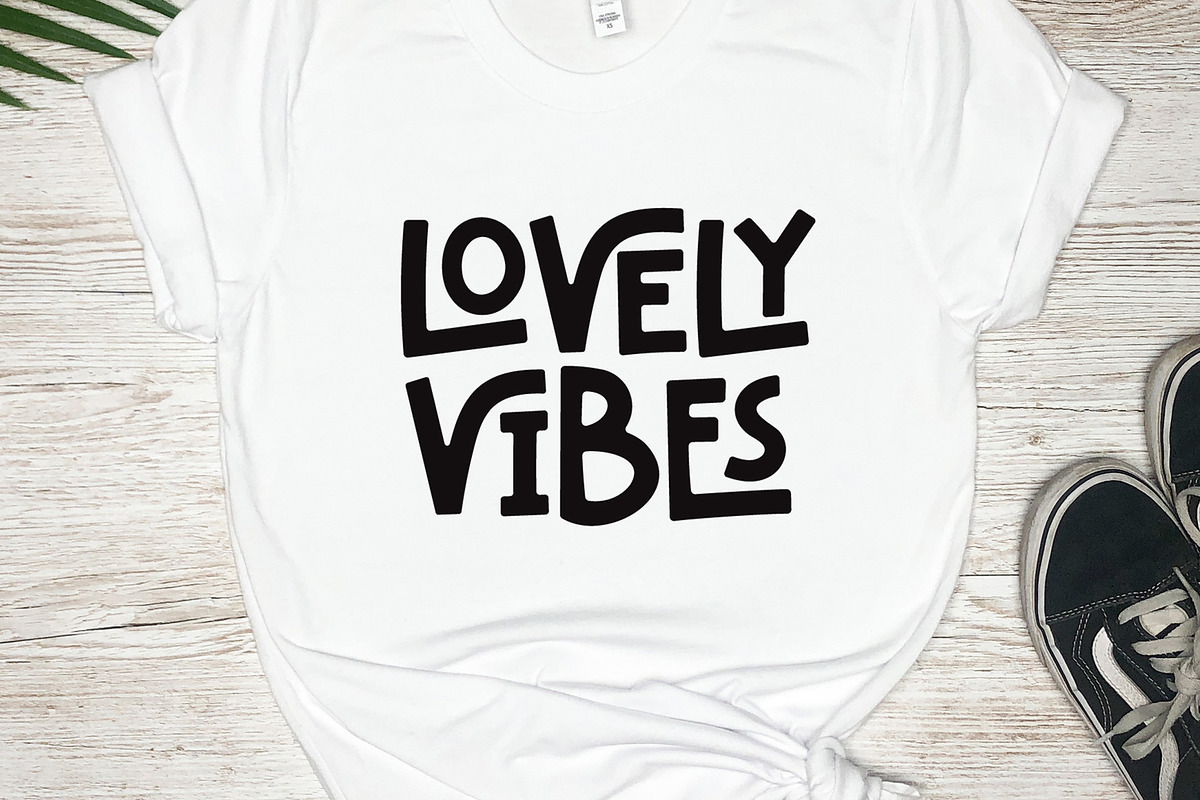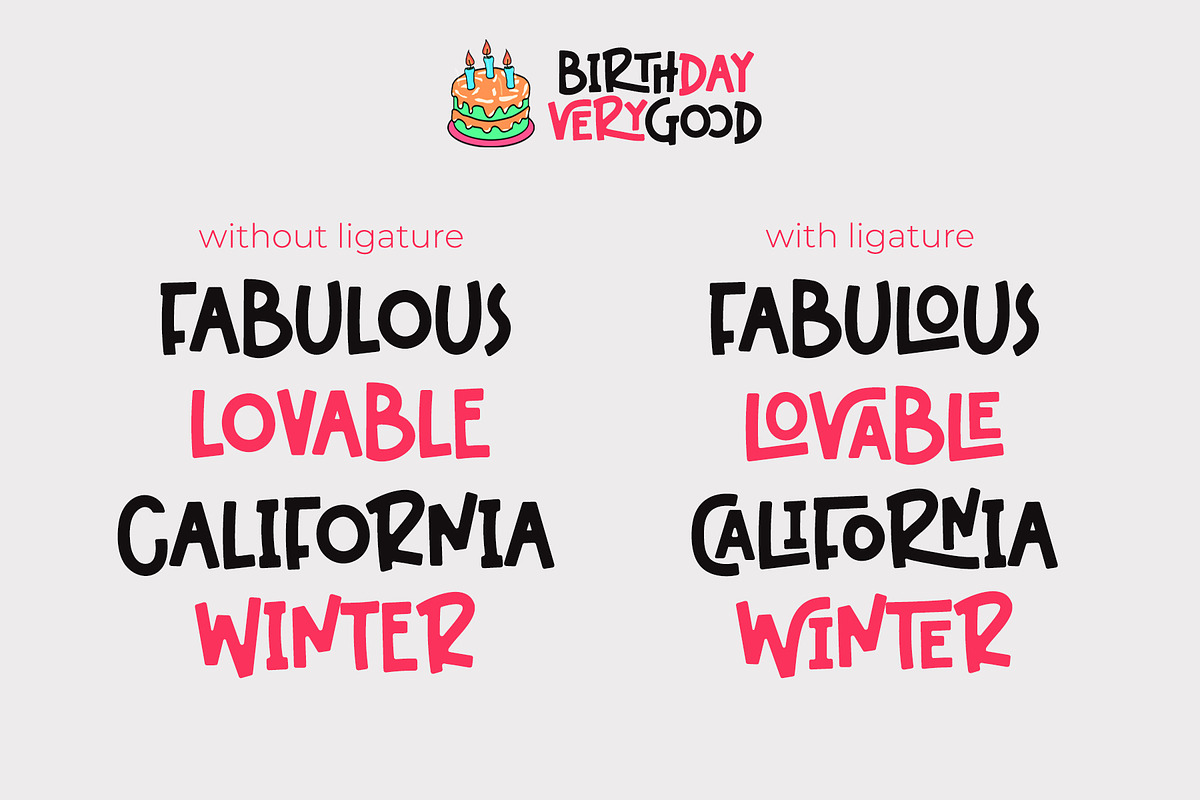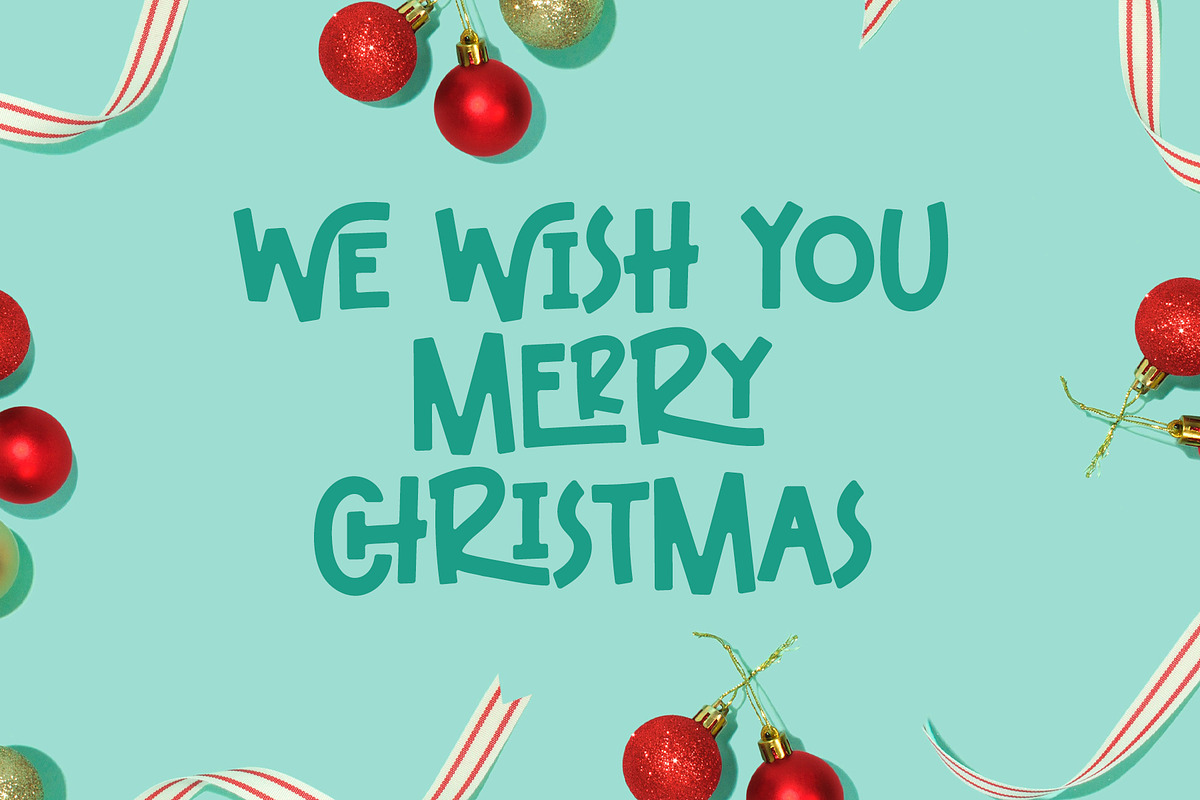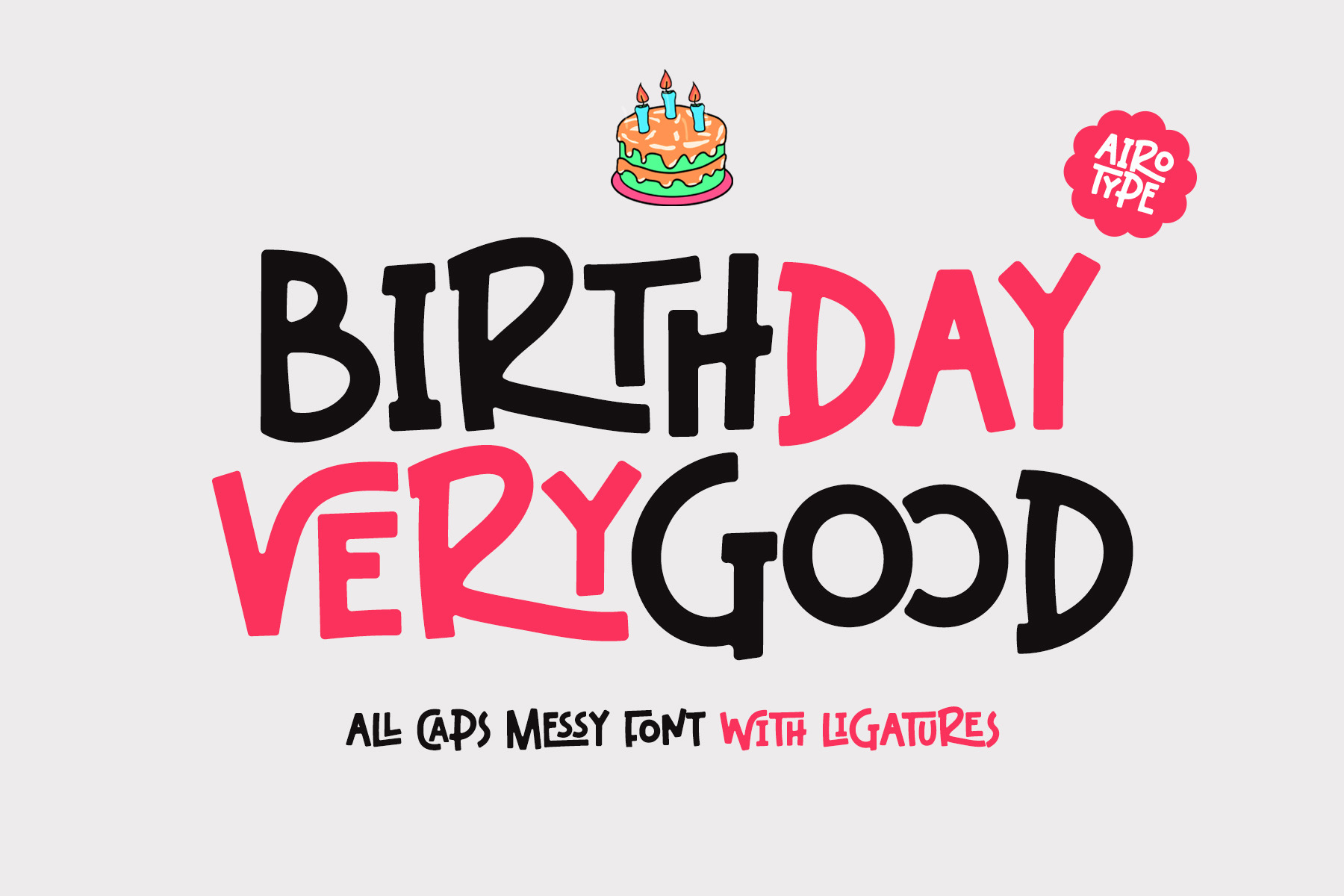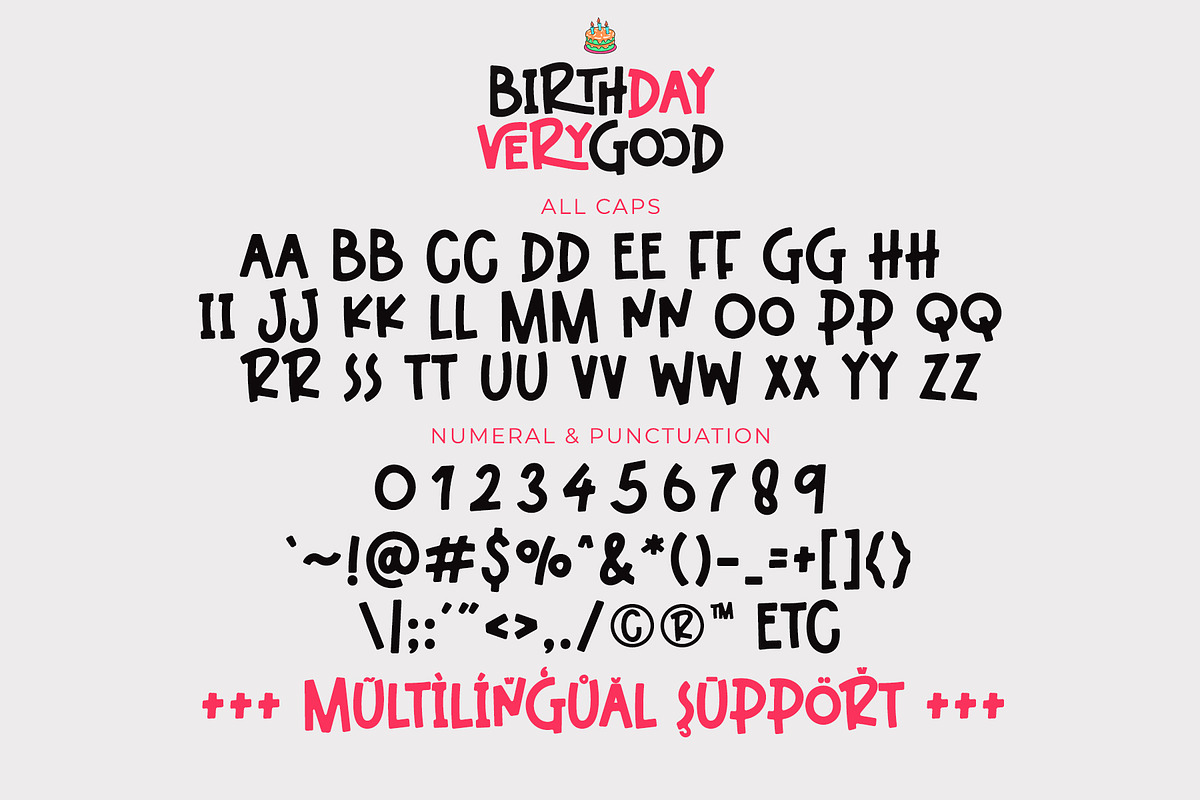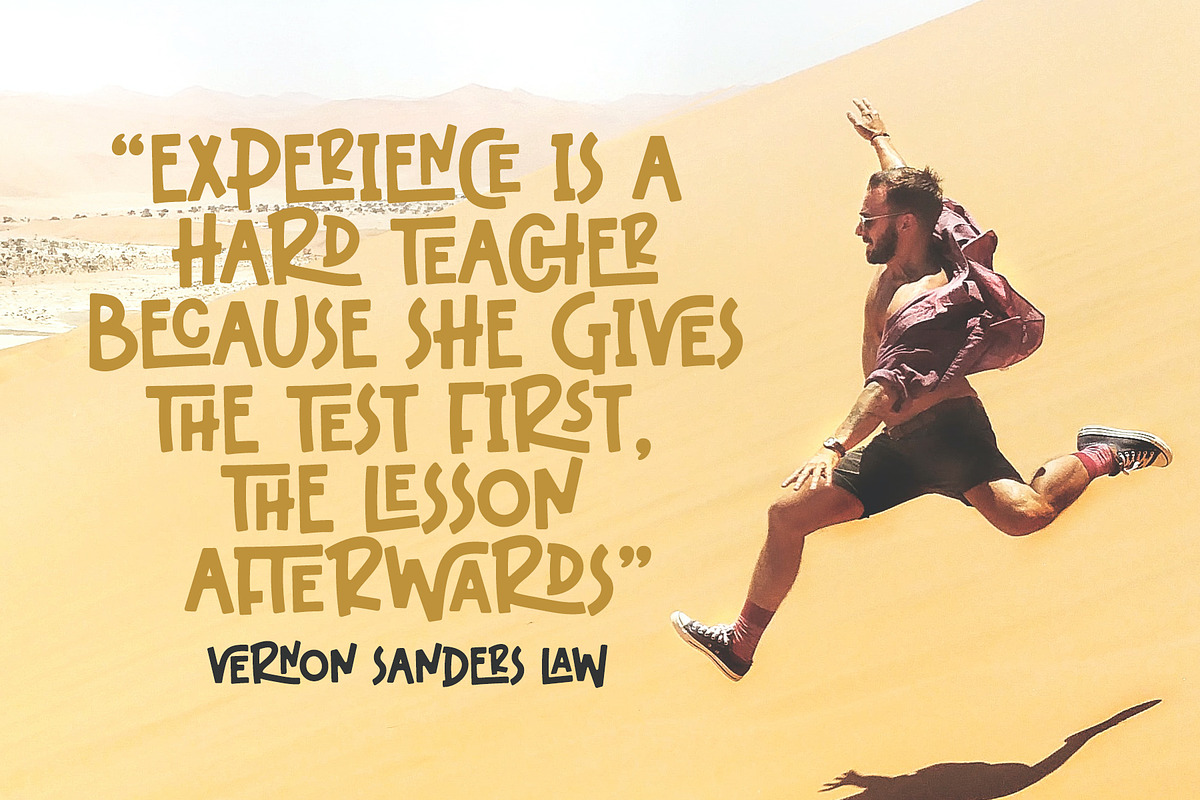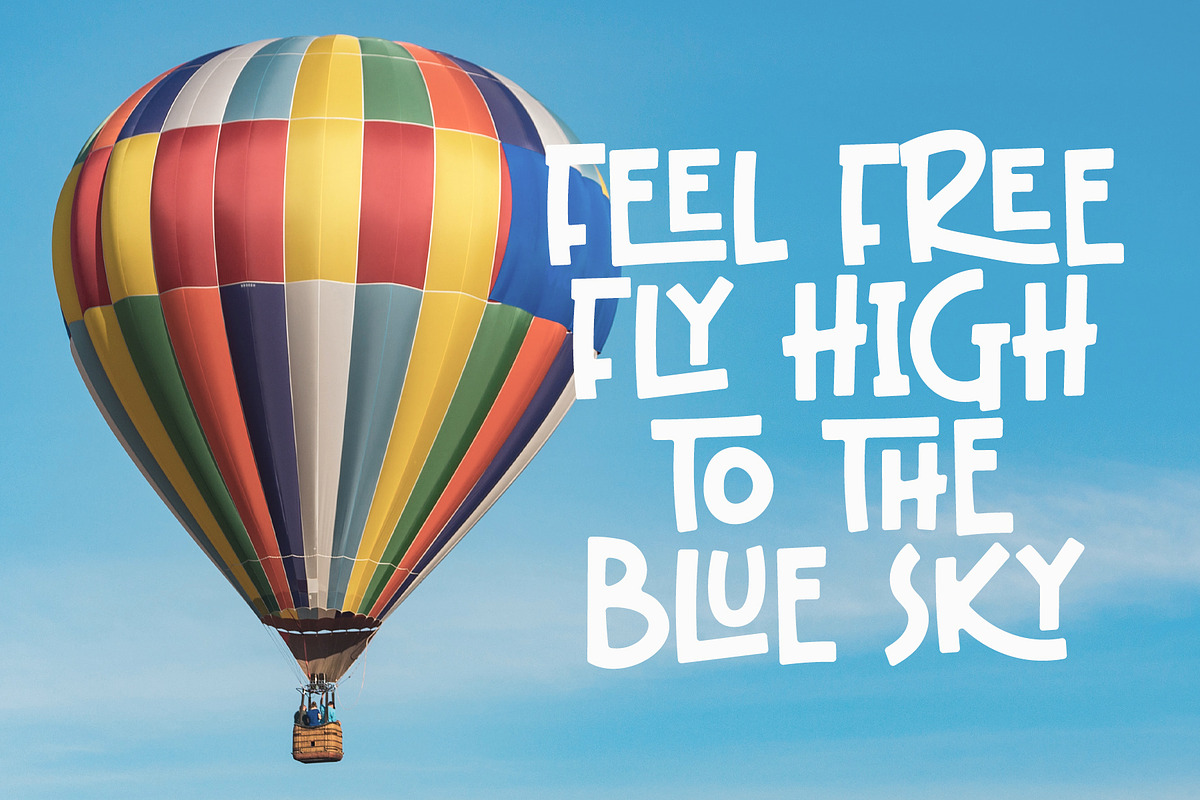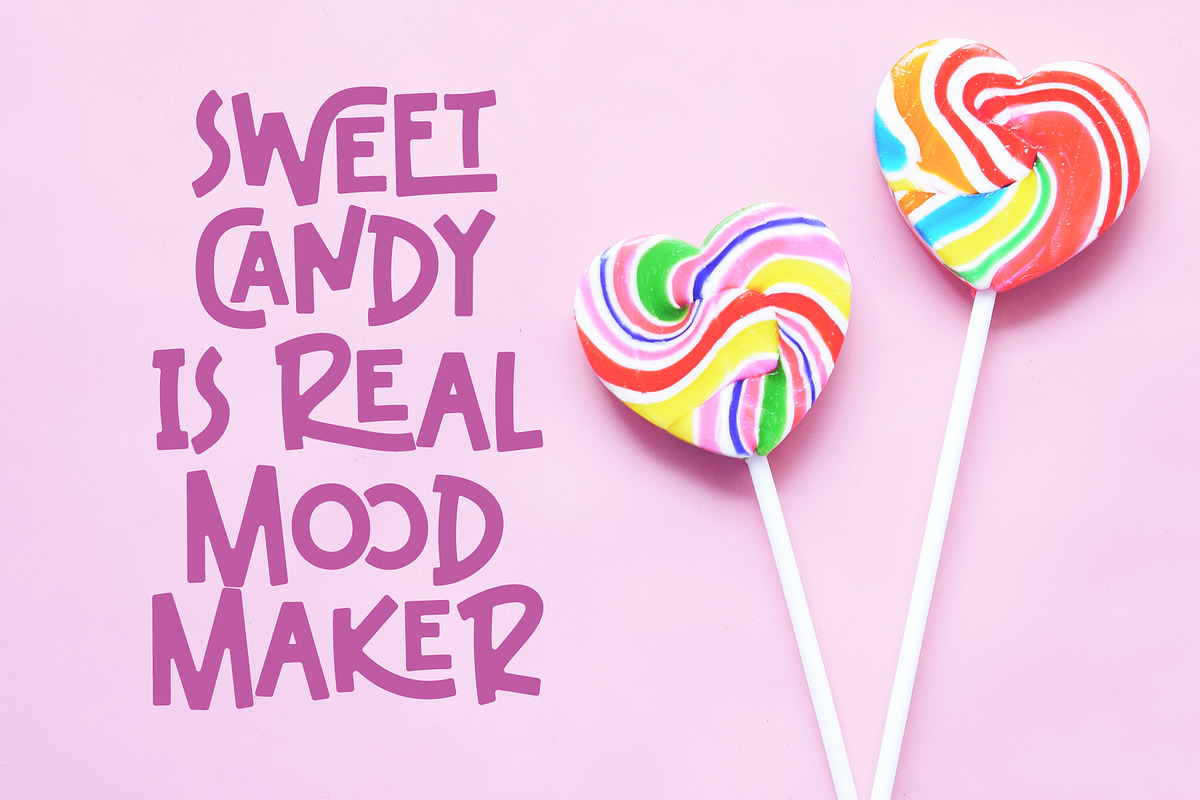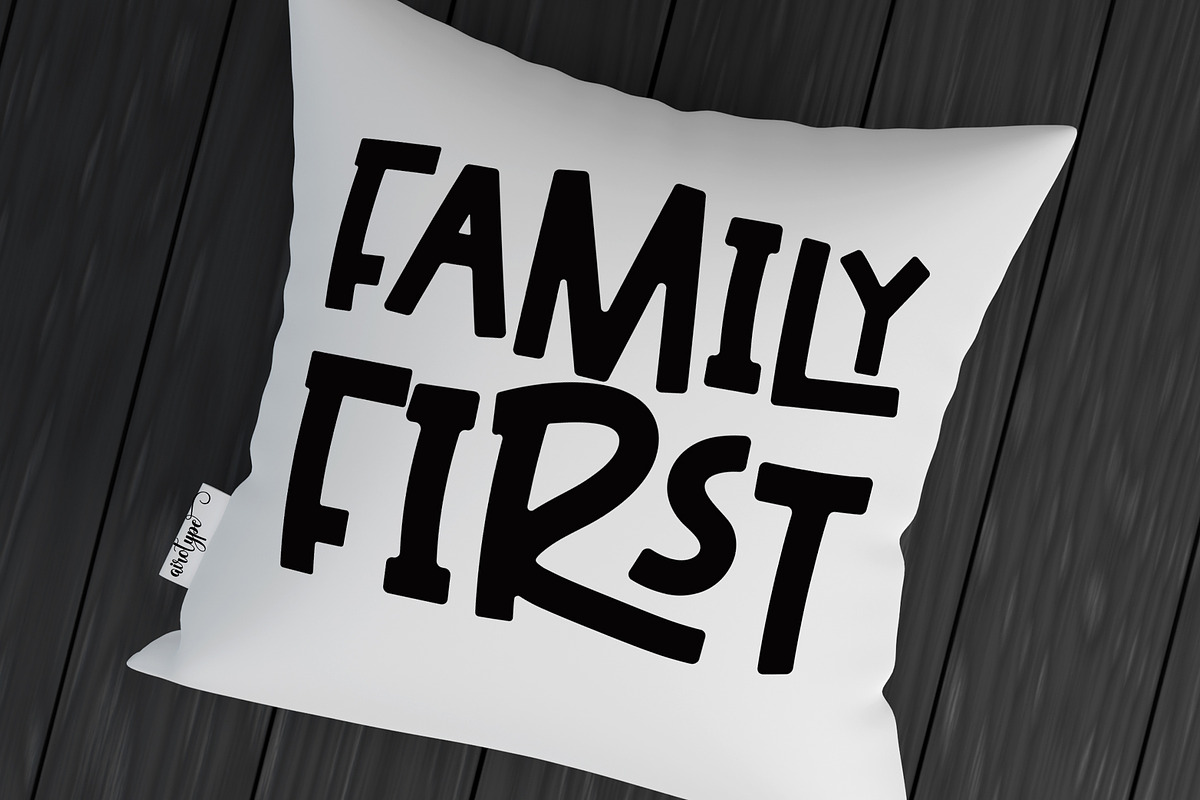
Birthday Verygood - Ligature Font
Birthday Verygood is all caps display font with cute vibes. It has lots of ligatures that makes it look fancy, cool and edgy. Make sure you know how to activate ligatures in software you are using.
This font is perfect for any projects, especially with cute and playful style, such as logo, t-shirt, crafting, poster, branding, sticker, sublimation, quotes, and many more.
- All Caps with ligatures
- Most Multilingual Accent